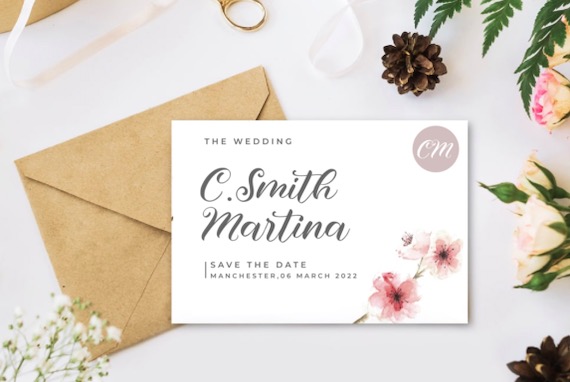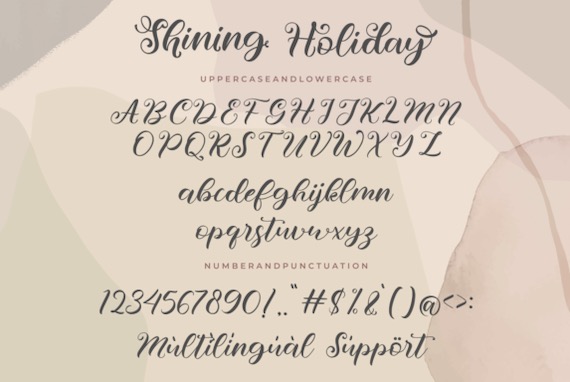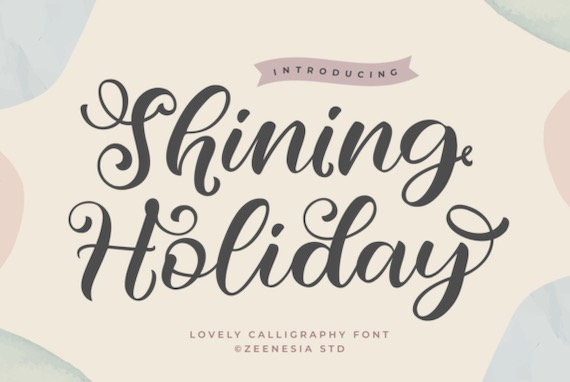
Shining Holiday is a classy and modern calligraphy font that was created and shared by Zeenesia. It has an authentic calligraphic feel in every letter that comes with a cute alternative character. Shining Holiday looks gorgeous on wedding invitations, thank you cards, quotes, greeting cards, logos, business cards, and every other design which needs a handwritten touch.
Shining Holiday Calligraphy Script Font